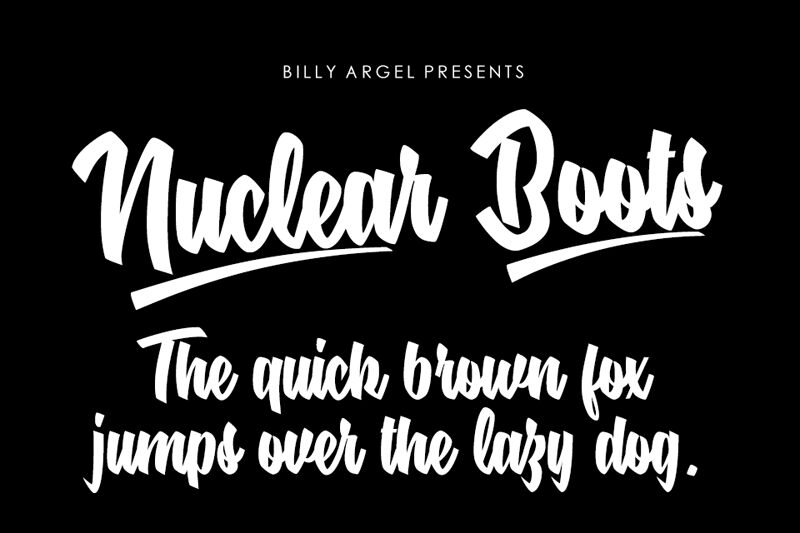
Nuclear Boots is a captivating brush font created by designer Billy Argel. Its bold, condensed strokes exude a striking, contemporary aesthetic, blending the rugged appeal of a handwritten style with the deliberate precision of a digital typeface. The font's dynamic, asymmetric letterforms lend an energetic, almost kinetic quality to any text, making it a versatile choice for headlines, logotypes, and display typography.
Its condensed width allows for impactful, space-efficient design, while the brush-like finish adds depth and character. "Nuclear Boots" is a distinctive typographic statement, well-suited for branding, editorial, and digital applications that require a bold, attention-grabbing presence.